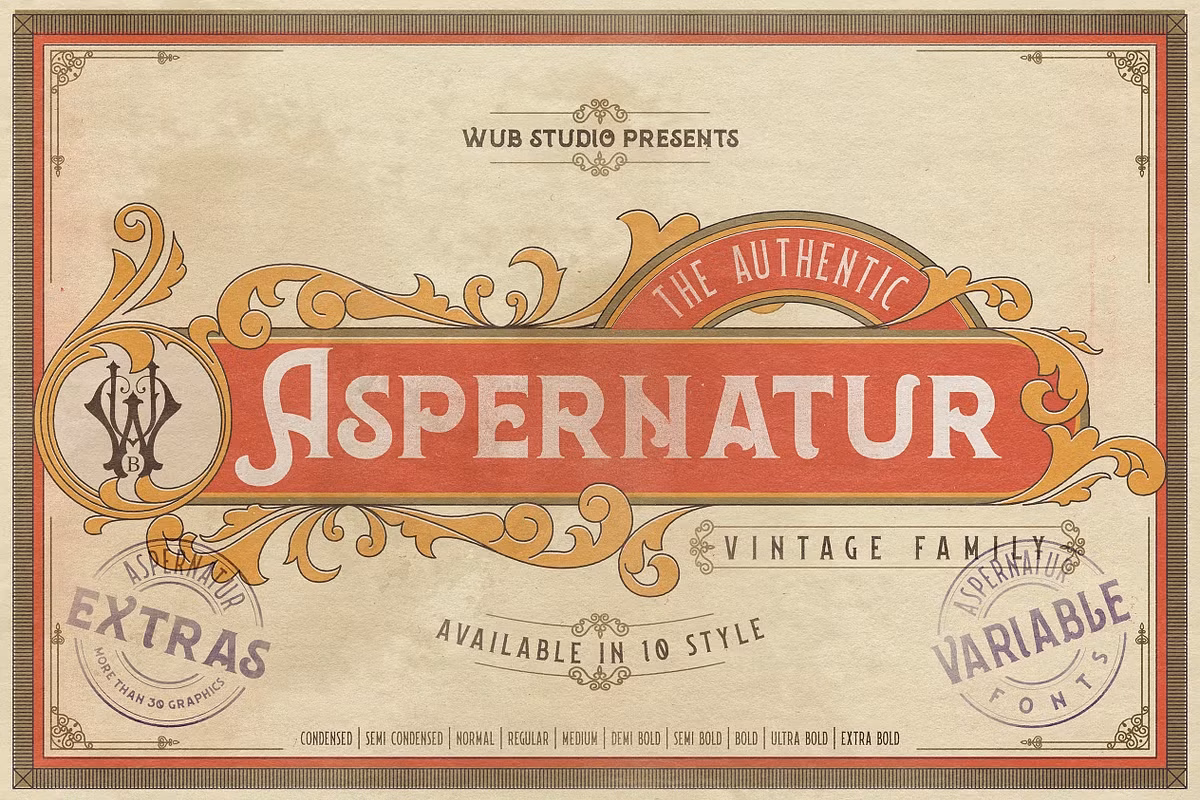
Aspernatur Vintage Family Font Free Download is a versatile and timeless typeface that brings a vintage aesthetic with modern flair. This font family includes multiple styles, from elegant serifs to bold display fonts, allowing you to create harmonious designs for any project. Perfect for branding, logos, editorial designs, and invitations, Aspernatur Vintage Family Font Free Download is ideal for projects that require a touch of retro sophistication. Whether you're designing for a boutique, creating an event invitation, or working on a vintage brand identity, this font family gives you the flexibility to explore various combinations in personal projects before purchasing a commercial license. Add character and charm to your designs with this beautifully crafted vintage font family.